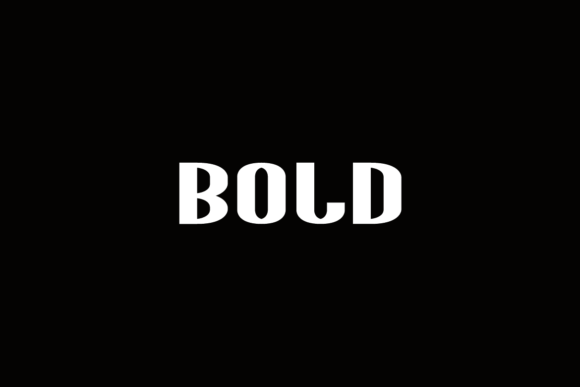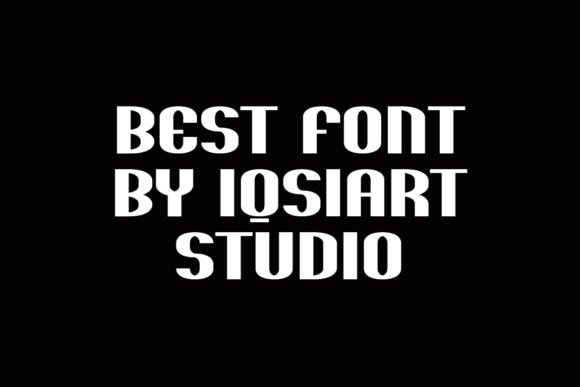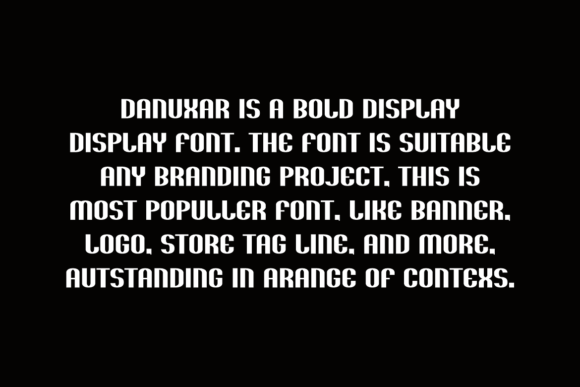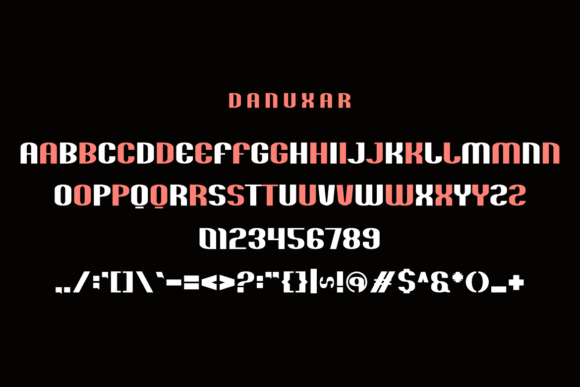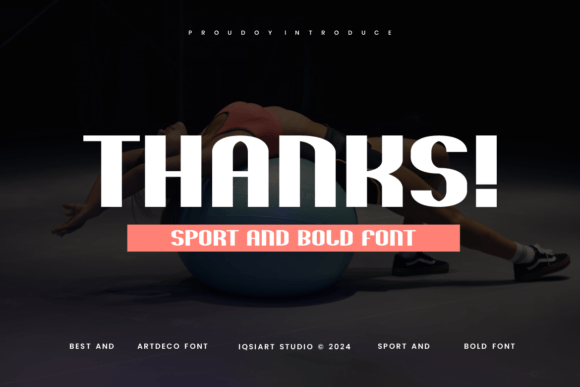
The Perfect Font for a Winning Design
Have you ever stared at a blank page, searching for the perfect font to bring your design to life? For many of us, this is a familiar creative moment – the thrill of possibility, the fear of settling for something less. But what if you could find a font that not only makes your design stand out but also embodies the energy and confidence you’re trying to convey?
Enter the Danuxar Font, a bold and sporty typeface that’s perfect for headlines, logos, or any project that needs to pack a punch. With its strong, thick letters and modern look, Danuxar Font is a valuable tool for designers looking to add some power and energy to their work.
Danuxar Font Key Features
- Font Family: Danuxar is a sans-serif font family with a modern and clean design.
- Character Count: The font family includes over 800 glyphs, covering a wide range of languages and characters.
- Size: Danuxar is available in 5 different font weights, ranging from Light to Extra Bold, to cater to various design needs.
- Unique Characteristics: Danuxar features a unique blend of geometric and organic elements, giving it a distinctive and modern look.
Danuxar Font Review
As a designer, I was excited to try out the Danuxar font. Here’s my honest review:
- ✨ Unique aesthetic: Danuxar has a distinctive, futuristic look that sets it apart from more traditional fonts.
- ✨ Good legibility: The font is easy to read, even at smaller sizes, making it suitable for digital use.
- ✨ Customizable: The font offers a range of styles and weights, allowing for flexibility in design applications.
- ⚠️ Limited character set: The font’s character set is limited, which may cause issues with certain languages or special characters.
- ⚠️ Not suitable for body text: While Danuxar is great for headings and titles, it may not be the best choice for large blocks of body text due to its futuristic feel.
- ⚠️ Not ideal for print: The font’s digital design may not translate well to print, where it may appear too bold or pixelated.
Danuxar is a great choice for designers looking for a unique, futuristic font for digital applications. While it has some limitations, its strengths make it a valuable addition to any design toolkit.
Introduction to Danuxar Font
Tips for Getting the Most Out of Danuxar Font
To get the most out of the Danuxar font, try the following:
1. Use the font in combination with other elegant fonts to create a sophisticated look.
2. Experiment with different font sizes and styles to achieve the desired effect.
3. Use the font in headings and titles to add a touch of elegance to your designs.
Common Use Cases for Danuxar Font
The Danuxar font is commonly used in:
Alternatives to Danuxar Font